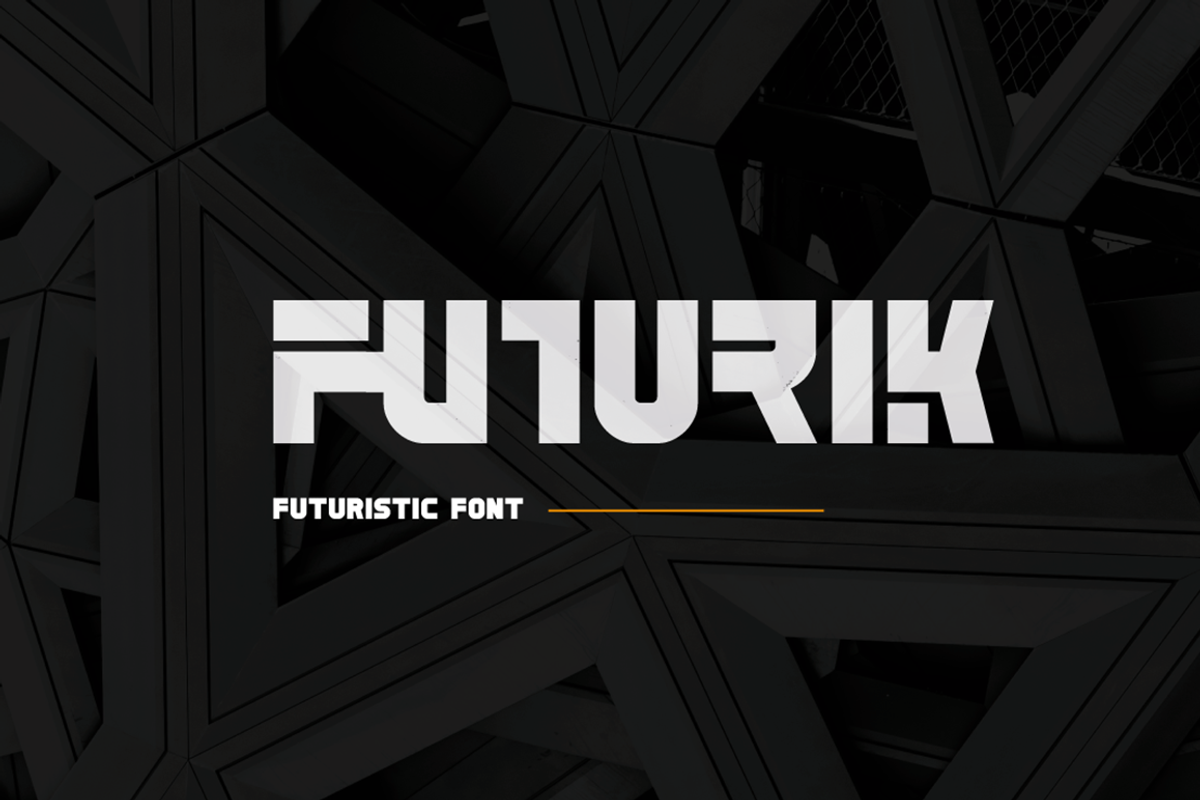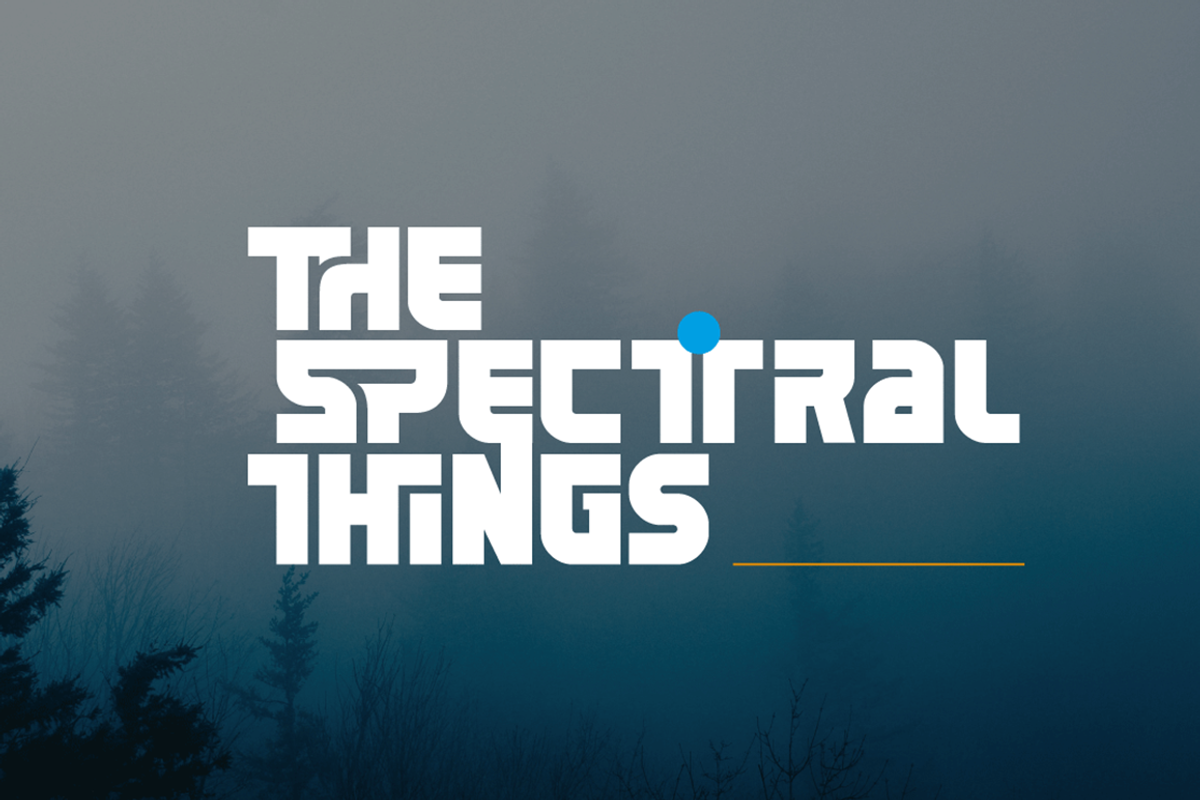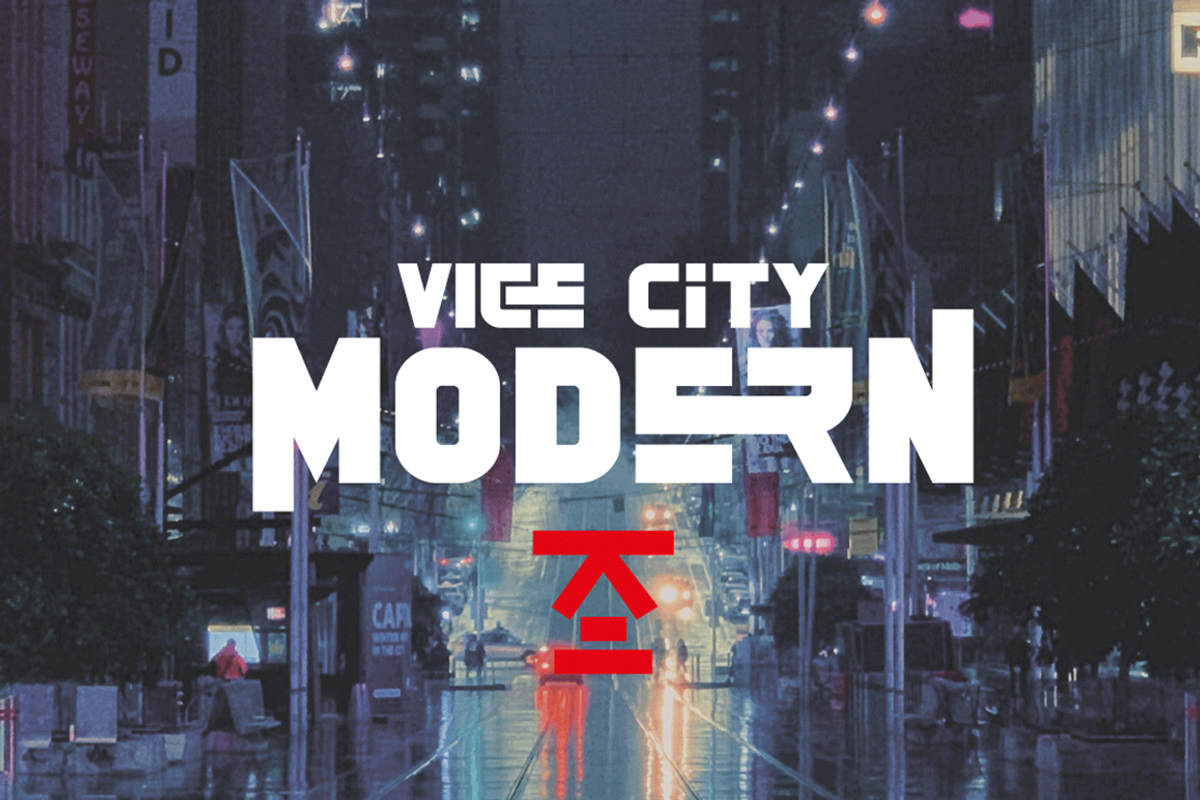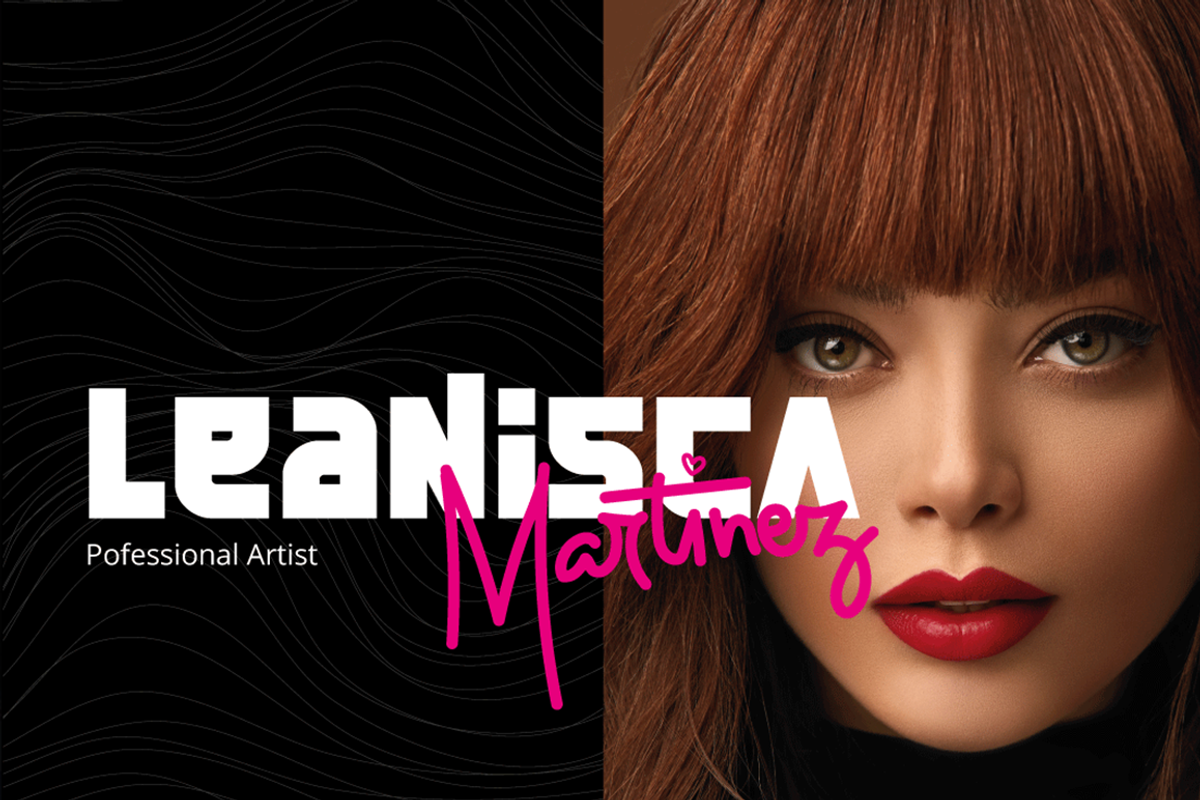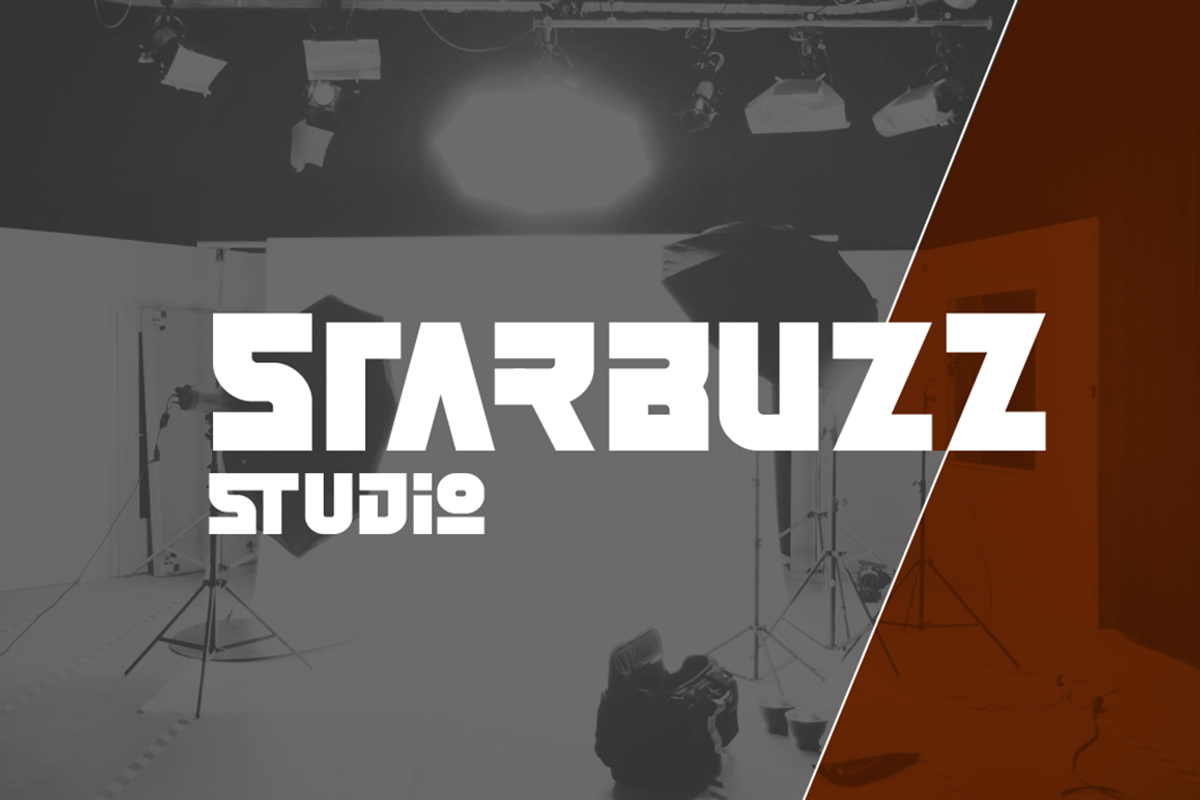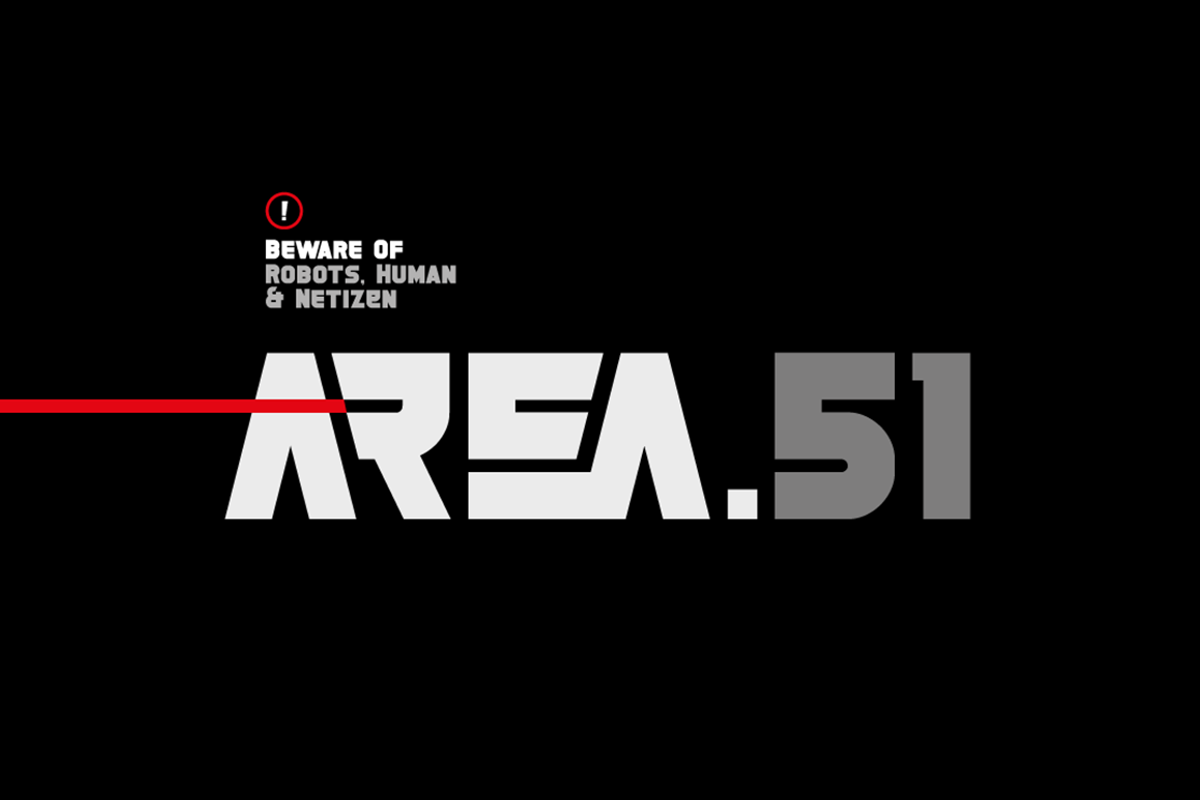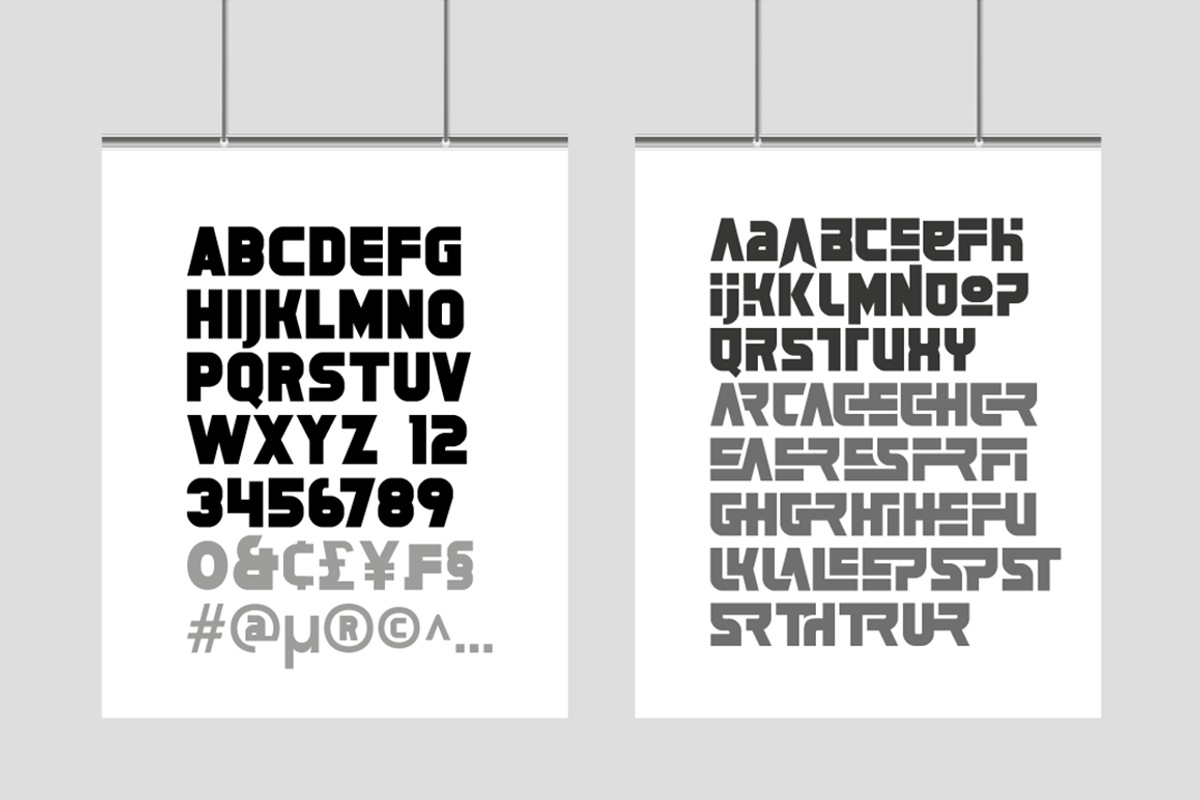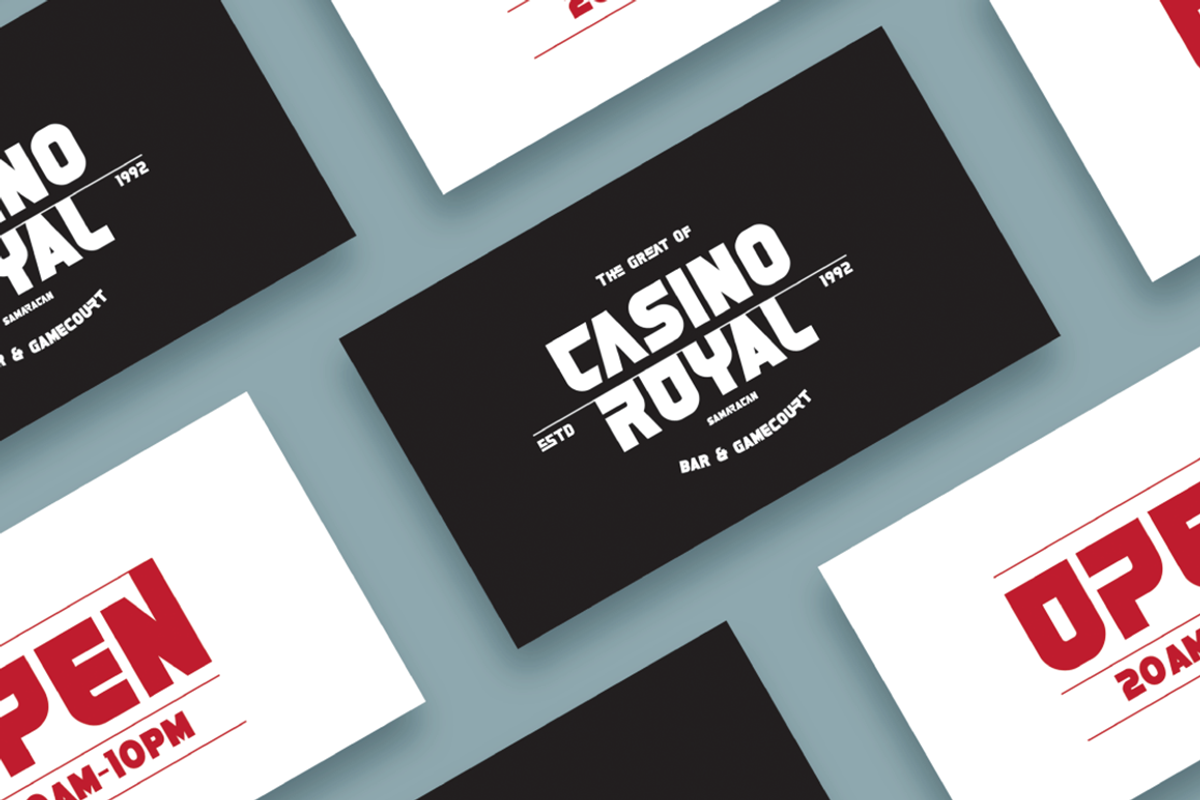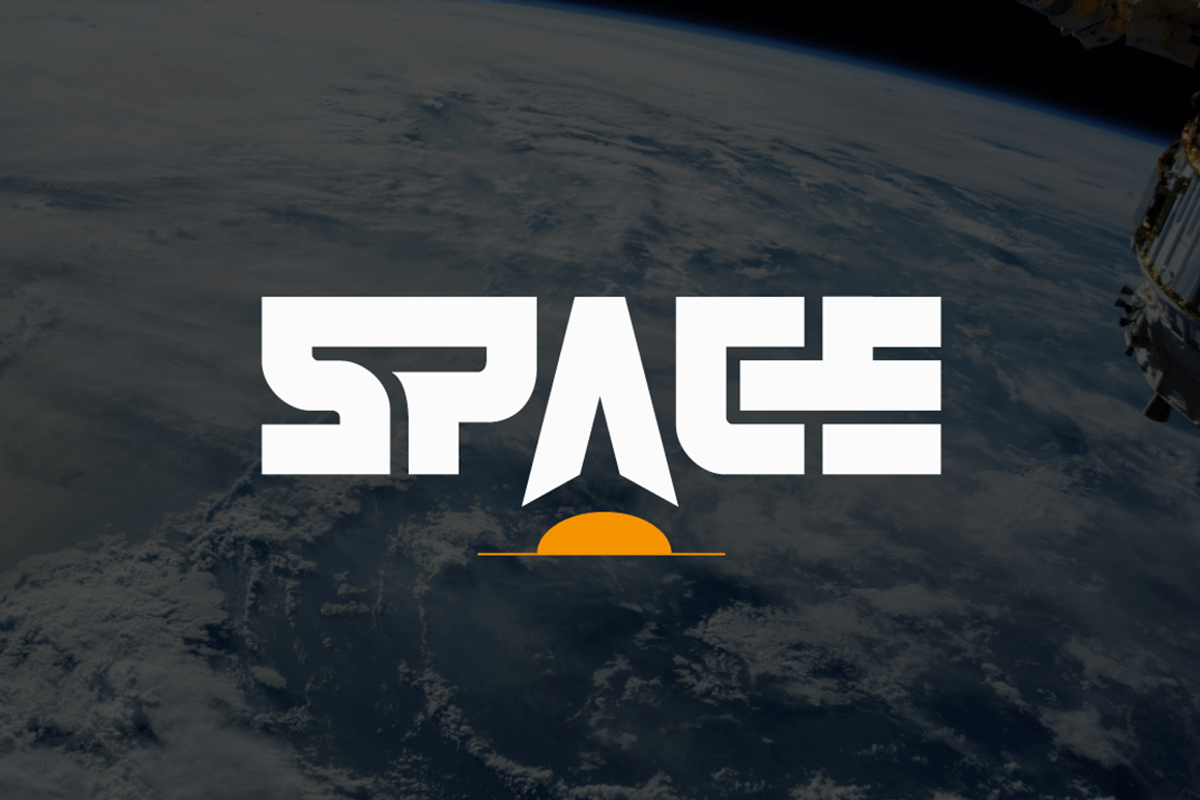
Futurik Display Font
Futurik is a futuristic look font, designed all Caps with different size. Comes with an unique alternatives for every letter, to create some custom design by single font. This Font is perfect for movie title poster, logo header, magazine header, or such even an invitational poster, or any other project. It includes multilingual language support.